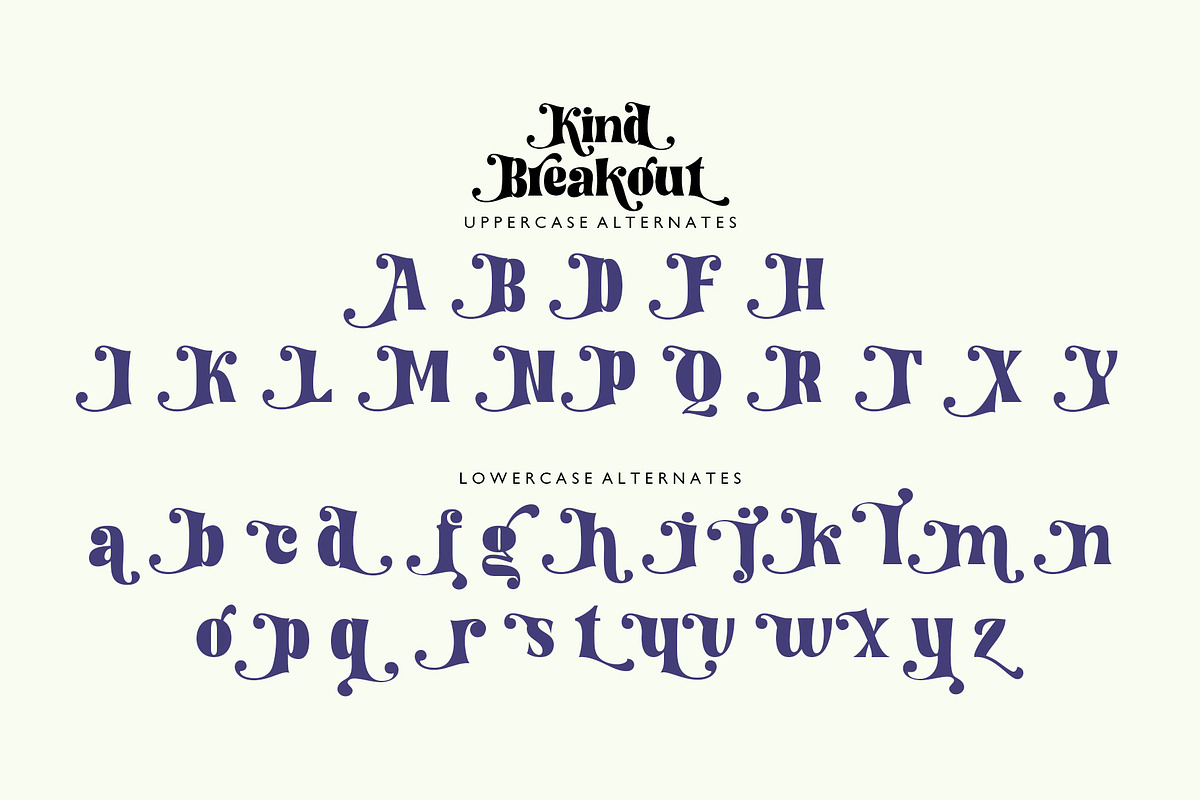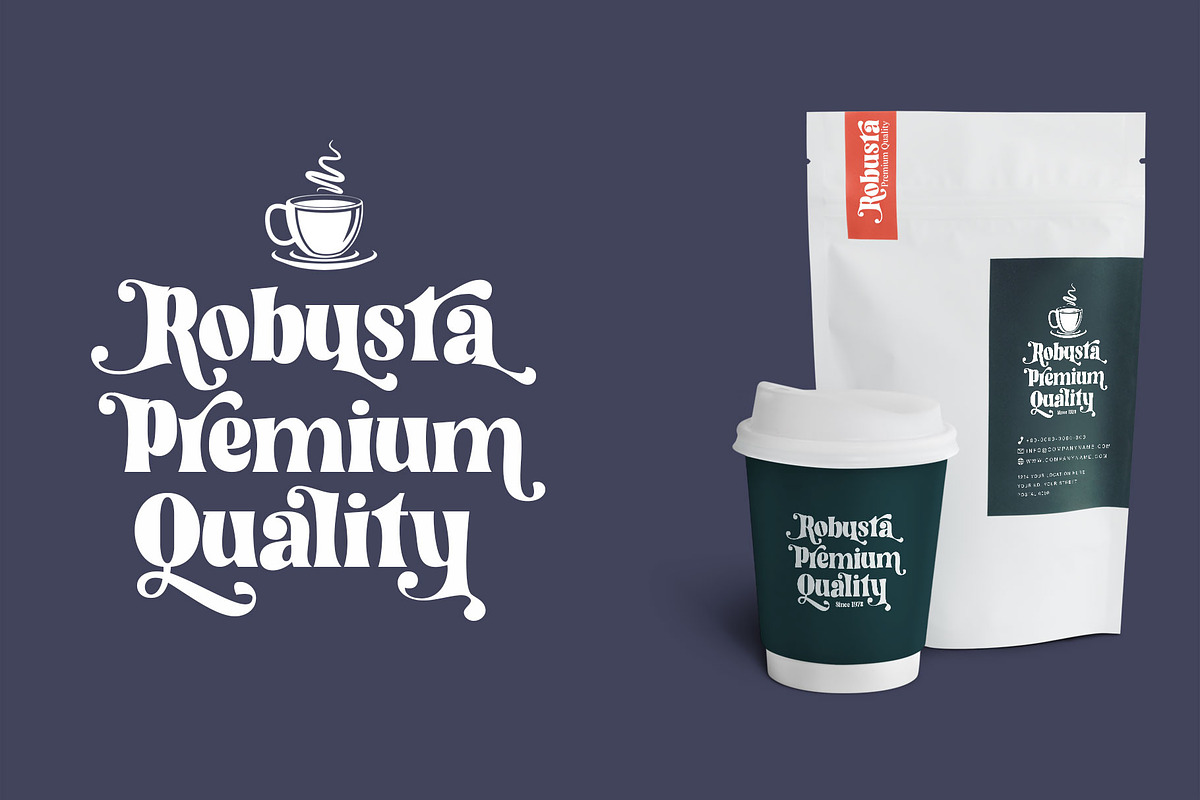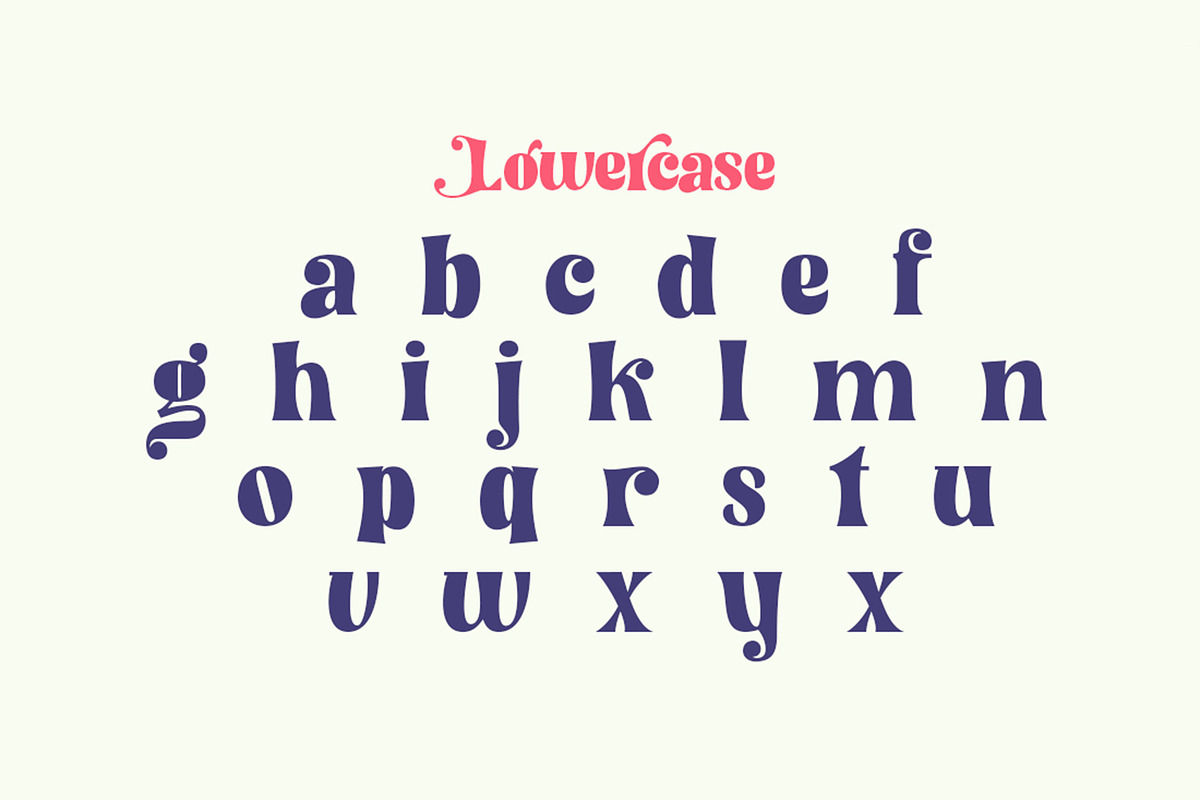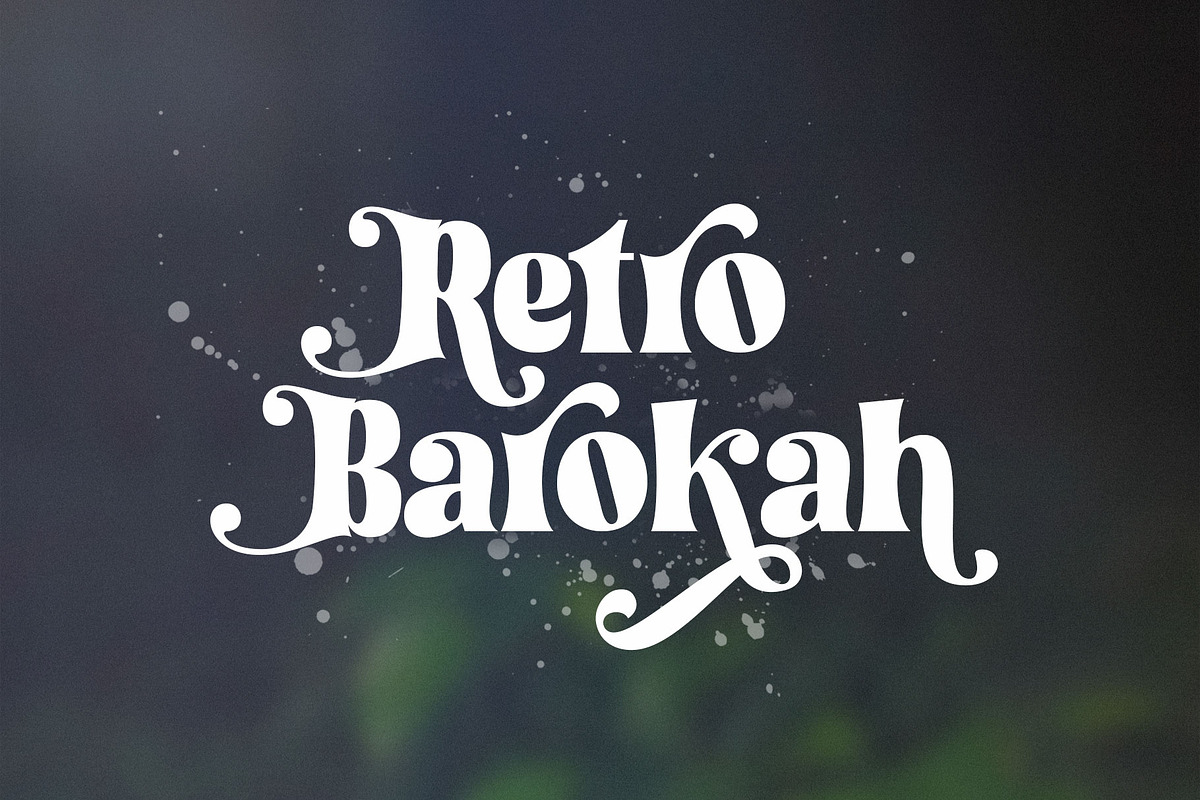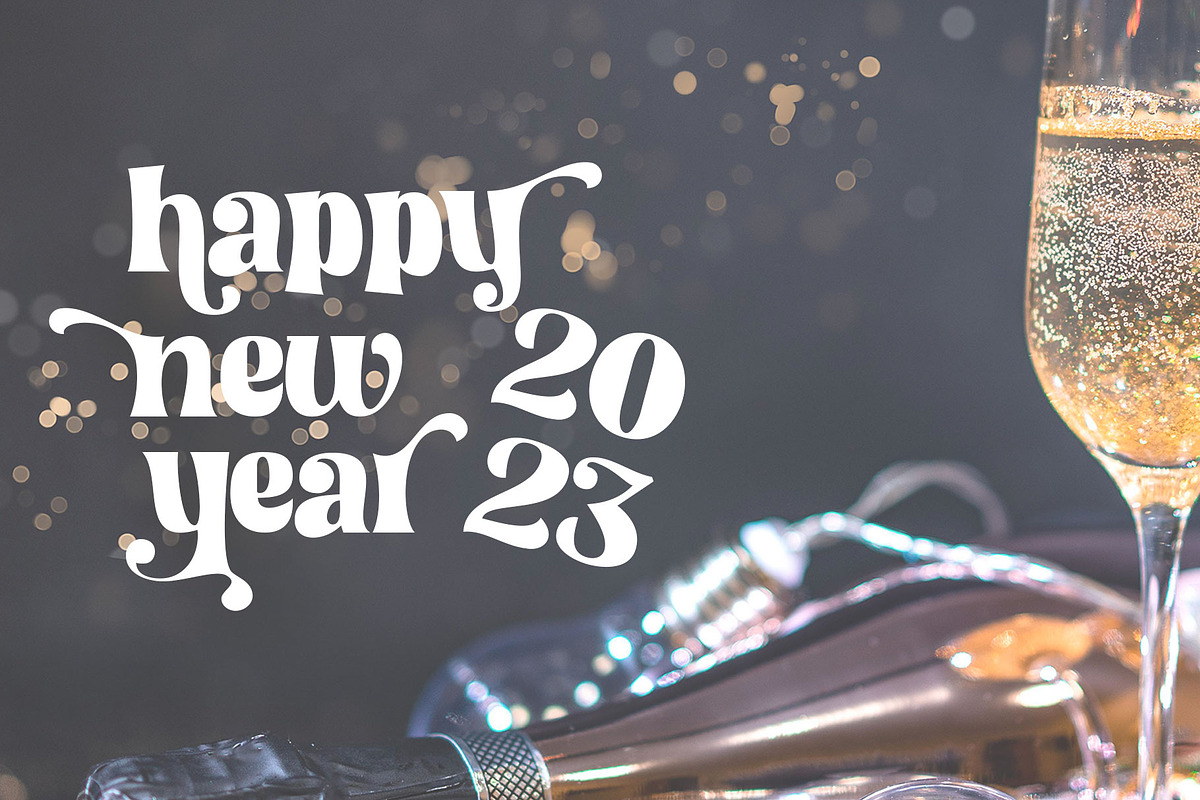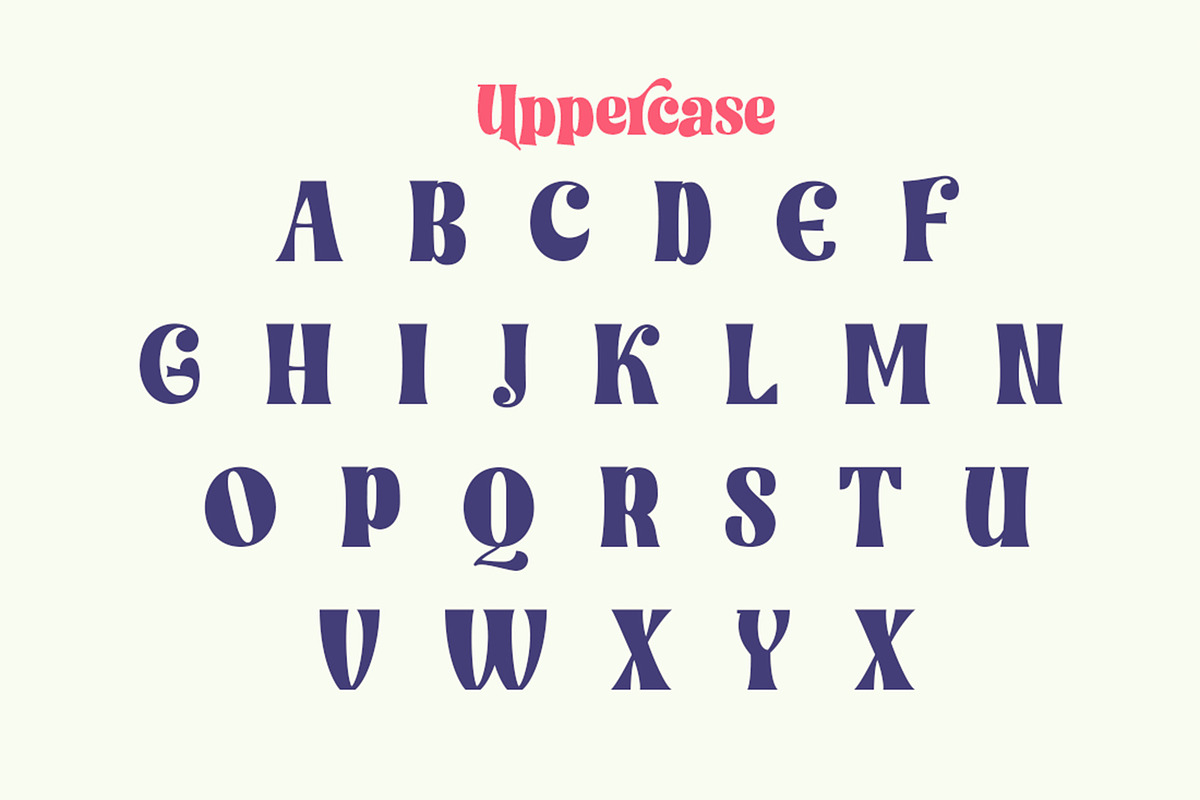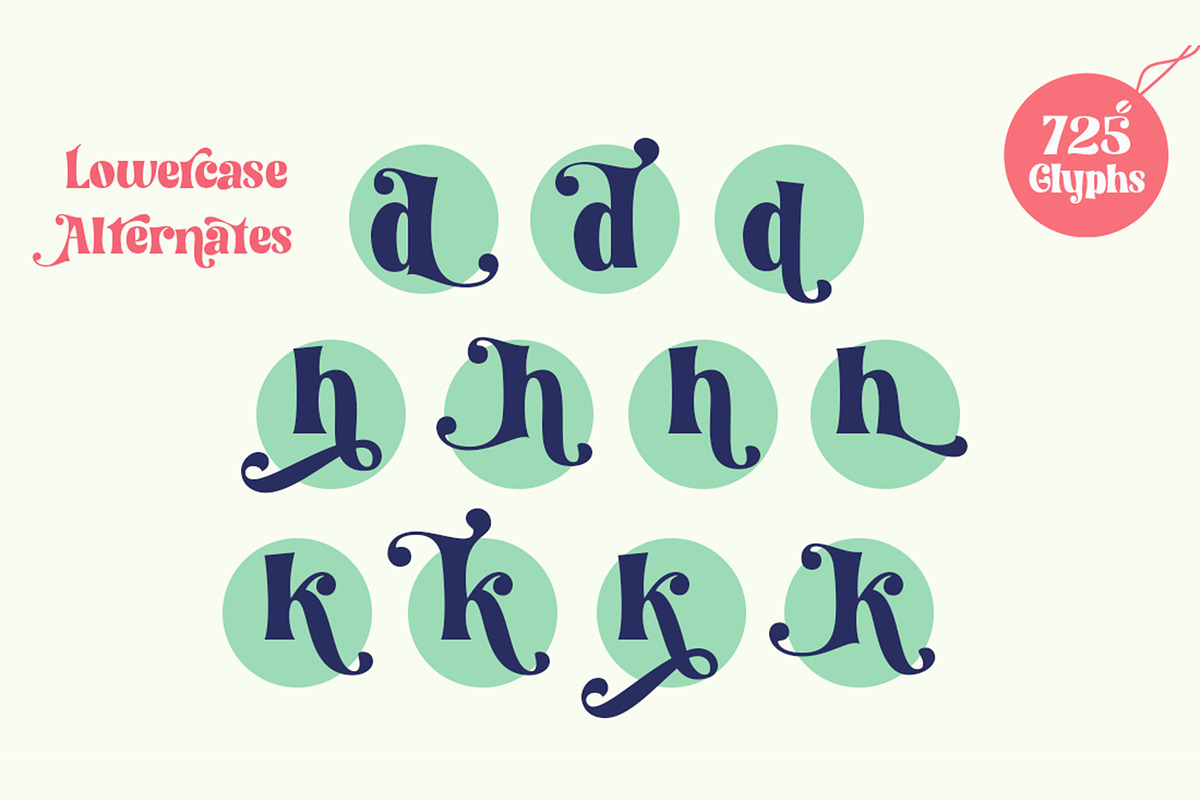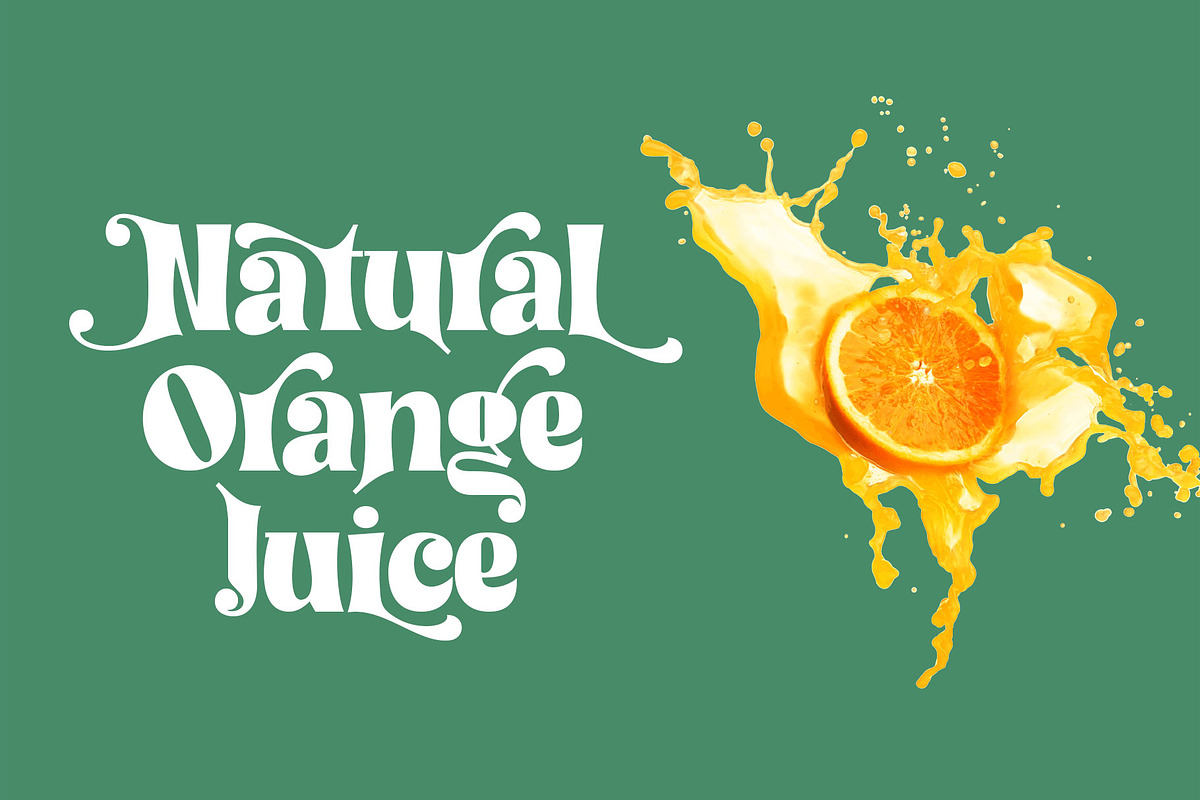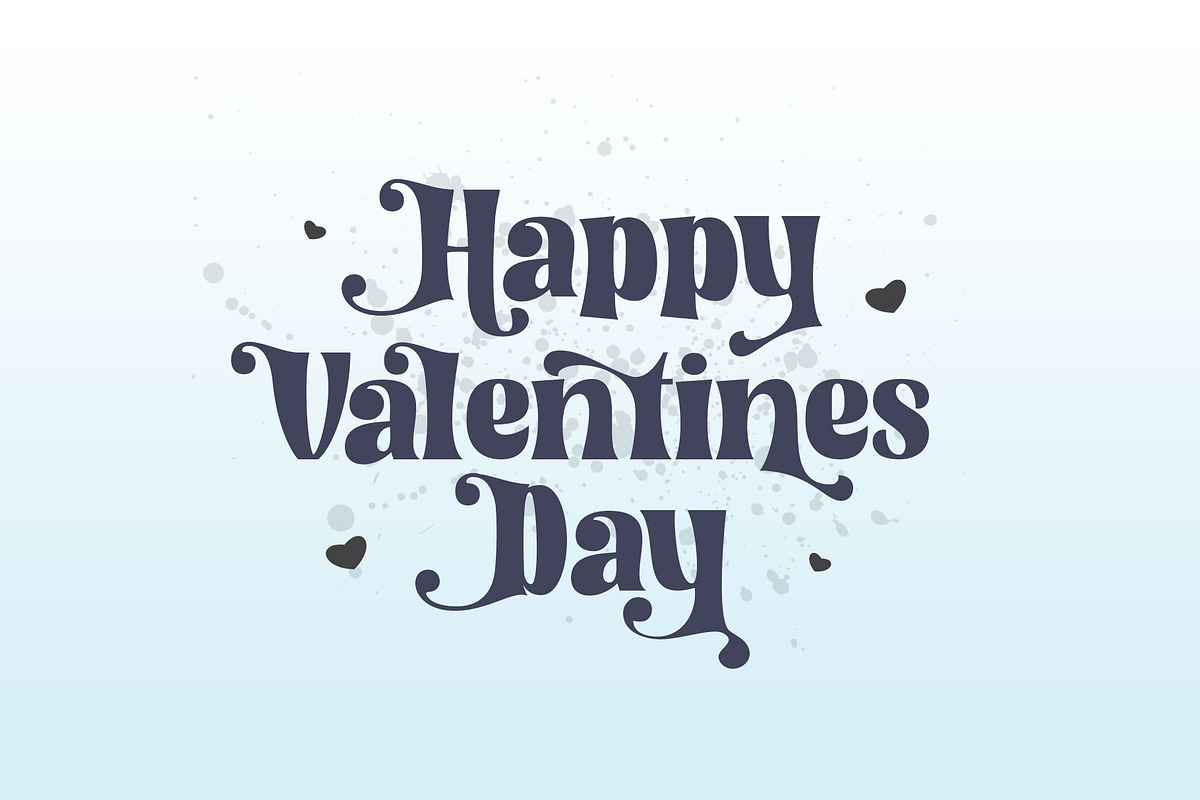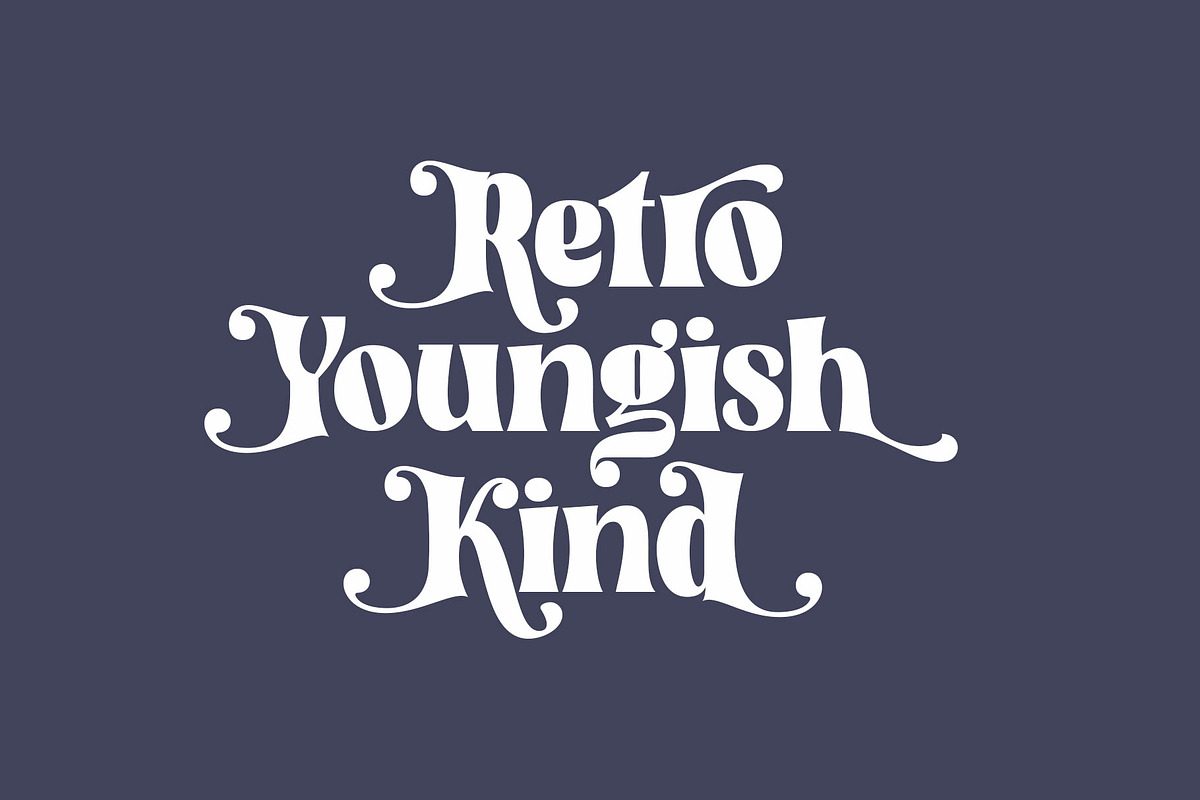
Kind Breakout-Retro Serif Typeface
"Kind Breakout - Retro Font" with a bold and modern vintage style and a touch of soff effect so you can feel a very distinctive vintage feel.
If your latest project needs a touch of class, it's time to take Kind Breakout to your font library. This beautiful and elegant typeface features a vintage style, OpenType features like ligatures, stylistic alternatives, stylistice Set, Swash, Discretionary Ligatures and even comes as a web font. Perfect for posters, logos, and stationery, this is a one of a kind elegant font waiting to impress.